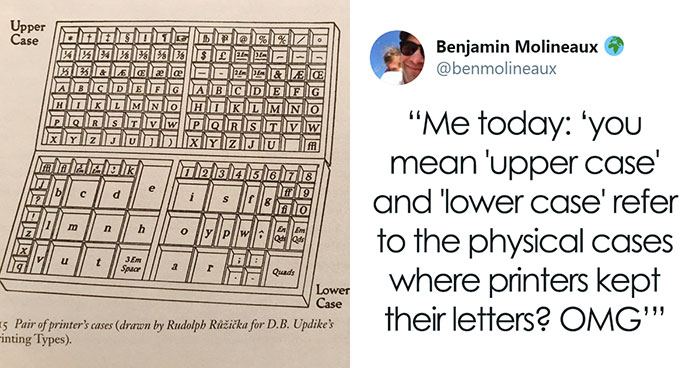
People who have studied languages and literature can relate that most don’t understand what’s so fascinating about either of those things. In fact, they end up calling us the grammar police and that’s about it.
But when linguists start talking about etymologies—the origins of words—it’s quite often the case that non-linguists start showing massive interest in it, mostly because things begin making sense in their brains so much that they become giddy with such knowledge and they start to understand just how intricate, logical, and simply interesting language really is.
This kind of situation happened recently when Twitter user Benjamin Molineaux found out the original meaning of upper case and lower case. This was not only absolutely fascinating to others, but also prompted some people to share their own tidbits of etymological knowledge.
You’d be surprised to learn how many words sound a bit odd, but have very logical origins
So, it all started with Twitter user Benjamin Molineaux posting a picture of a pair of printer’s cases (as illustrated in a book of some sort).
Jokingly, he said that kids today are surprised to learn that the save icon is actually a 3.5-inch floppy disk—because that’s where we used to save a lot of our digital things before all these terabytes we don’t know what to do with nowadays—and he, today, is surprised to learn that upper and lower case refers to actual cases, boxes.
These were used in old printing presses, with one part of the box containing all of the capitalized letters and the other having the non-capitalized ones. One is, hence, the upper case, the other is the lower case.
It all started off with one user explaining the origins of upper- and lowercase letters
This led to a number of people sharing similar typography-related terms and providing their etymologies, further blowing the minds of other tweeters.
And it lead to many others explaining the origins of other typographical terms and icon
For instance, the word font has a common root with found and hence foundry, referring to how olden printing used to be done. Also, leading refers to the size of the lead strips used to create the spaces that lead the type.
Another lesser-known fact is that keyboards now have a shift key, which refers to the action of shifting the entire type bar on typewriters between upper and lowercase characters.
Needless to say, the terms cutting and pasting, while still being used today, refer to actual cutting of the printed text using scissors and pasting it using glue as part of the editing process.
Everything from fonts and foundries to leading and copy/pasting were mentioned in the thread
This little fountain of knowledge quickly shifted to a whole different social media where it was elaborated upon by Tumblr user Peter Morwood with visual shorthand icons and graphics about writing still using fountain pens, typewriters, and the sort—as opposed to monitors, keyboards, and other modern tech actually used today.
It also discusses the aforementioned 3.5-inch floppy disks as well as the shape of the phone icon for accepting and ending calls—these are in the shape of a curved phone with a visible speaker and microphone part to it, whereas today’s most commonly used phones are in the shape of a slate.
The tweets also found their way to Tumblr, where Peter Morwood elaborated on it with writing icons
The post also discussed the origins of phone depictions and elaborated on “save” icons